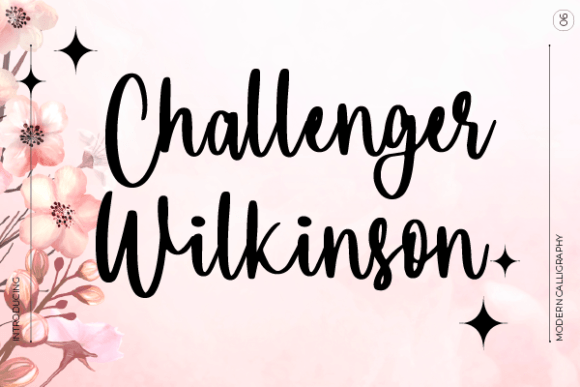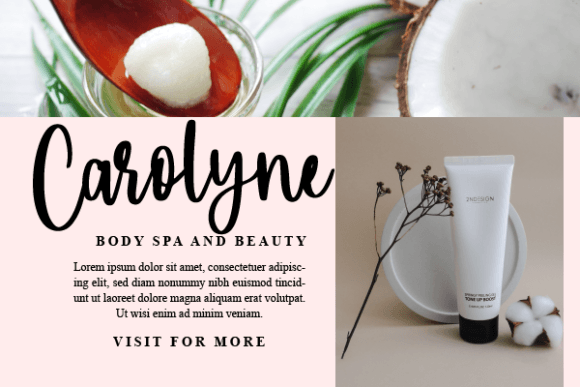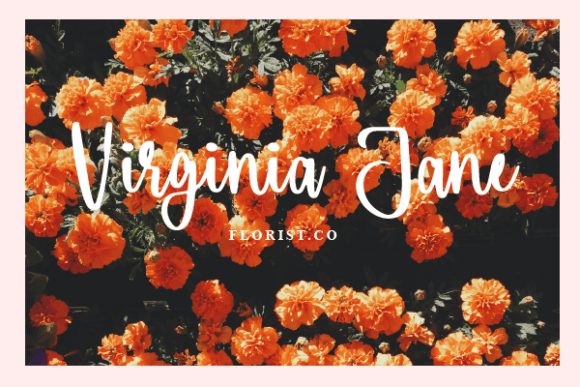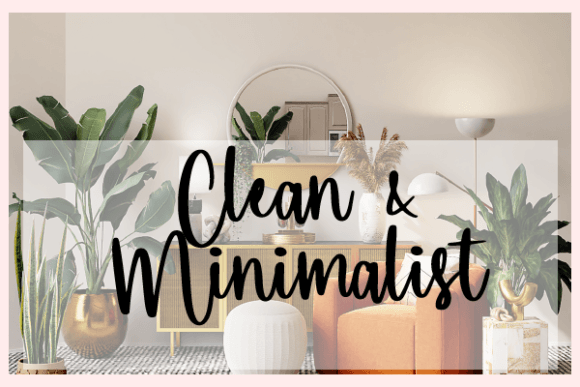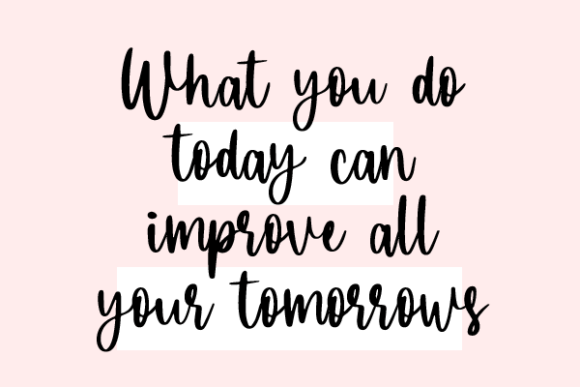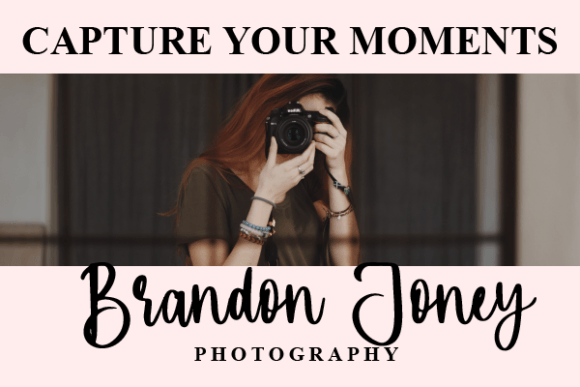
About Challenger Wilkinson
This font looks natural, stylish, and perfect for any extraordinary project that requires a handwritten feel. Its versatile style looks lovely on wedding invitations, thank you cards, quotes, greeting cards, logos, business cards, and every other design which needs a customized touch.